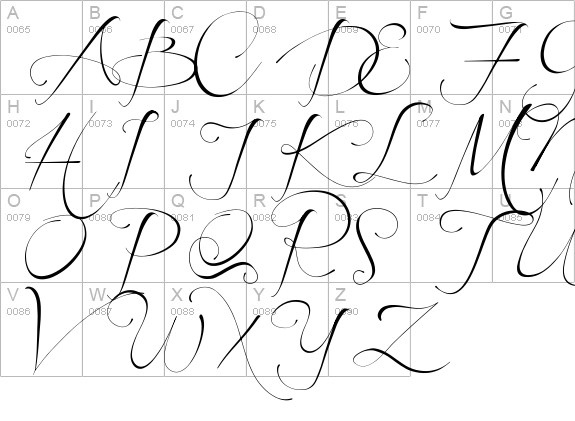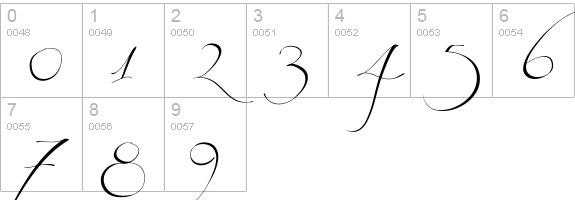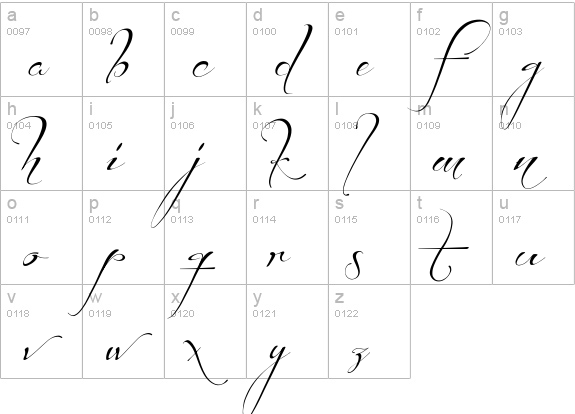
Before the Rain Font Details
Introducing Before the Rain, a captivating font that effortlessly combines elegance with a touch of nostalgia. Inspired by the beauty of handwritten script, this typeface exudes a timeless charm that is sure to captivate any audience. Before the Rain font is perfect for adding a touch of sophistication to your projects. Whether you're designing invitations, logos, or branding materials, this font will elevate your creations to new heights. Its fluid strokes and delicate curves create a sense of grace and refinement that is unparalleled. But what truly sets Before the Rain font apart is its versatility. It can effortlessly adapt to different styles and moods, making it suitable for a wide range of projects. From romantic wedding invitations to vintage-inspired packaging, this font is a true chameleon, always ready to enhance your designs. And the best part? Before the Rain font is completely free! That's right, you can download this stunning font for free at FontsMarket.com. We believe that creativity should be accessible to all, and by offering this font for free, we hope to inspire and empower designers worldwide. So don't miss out on the opportunity to add this enchanting font to your collection. Download Before the Rain font today and embark on a creative journey that is bound to leave a lasting impression.